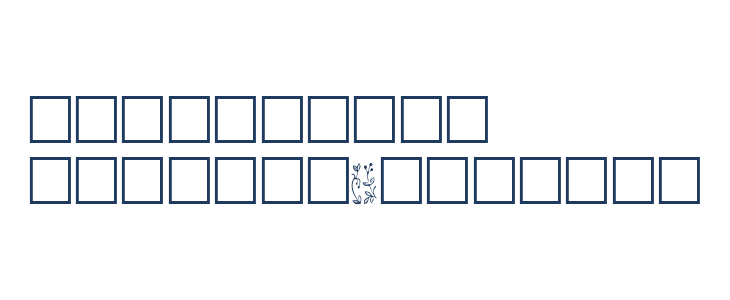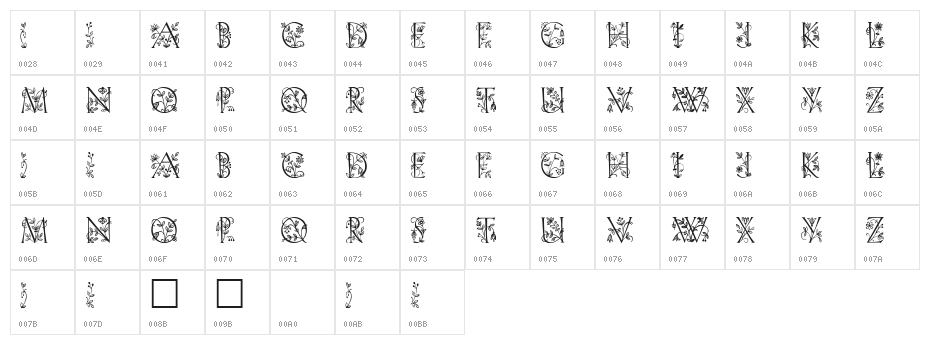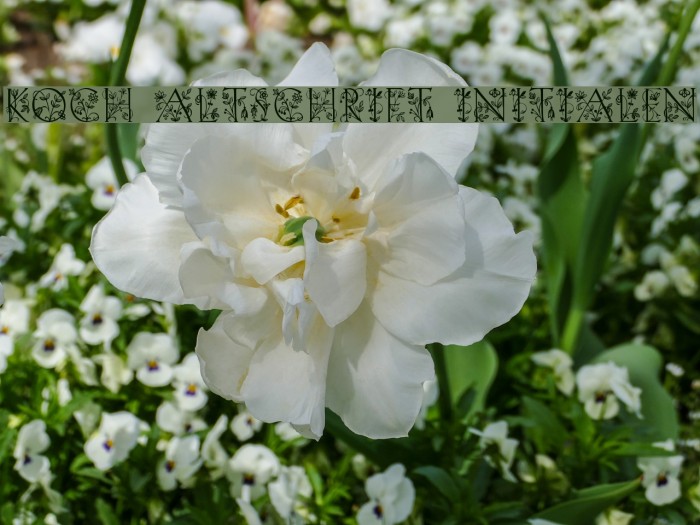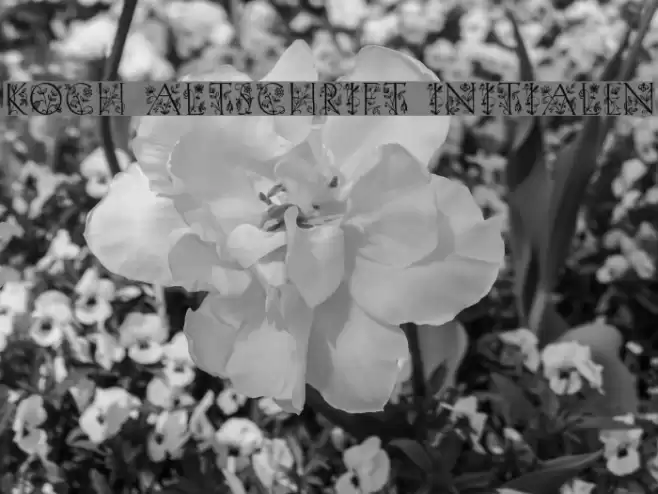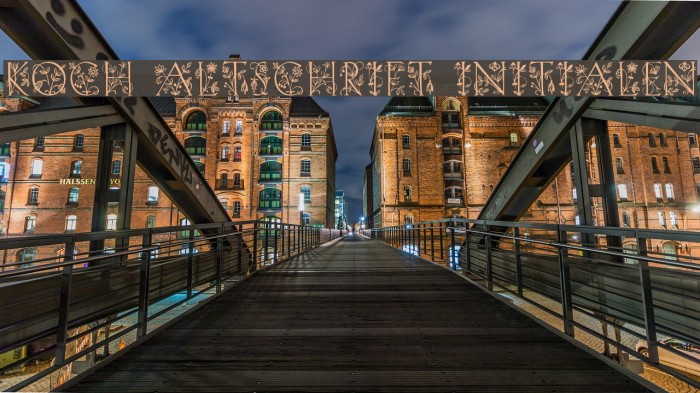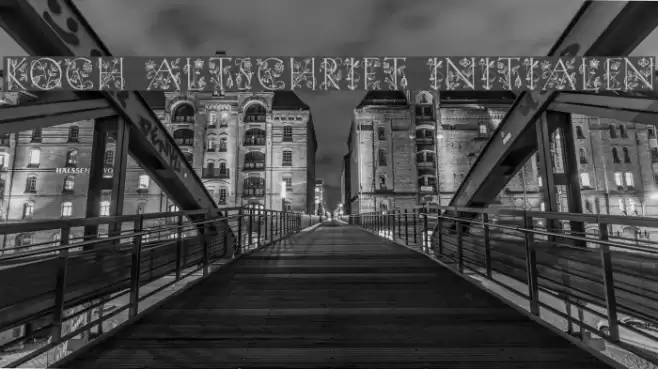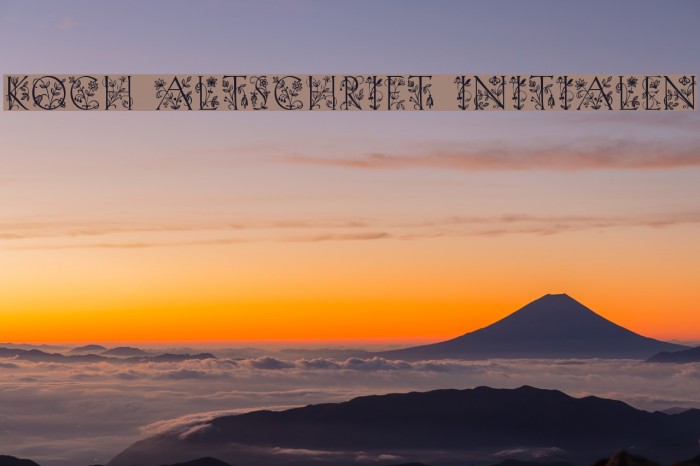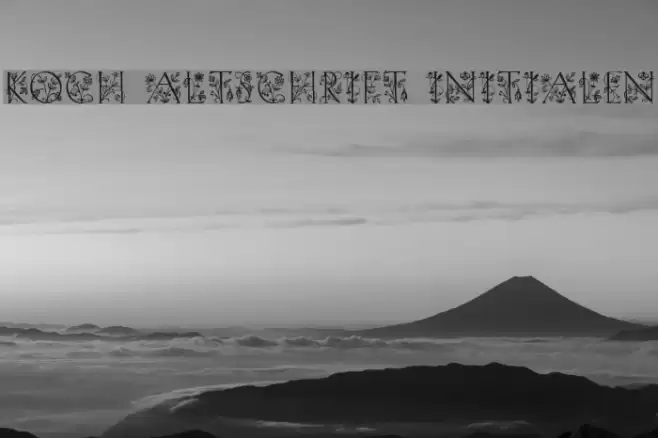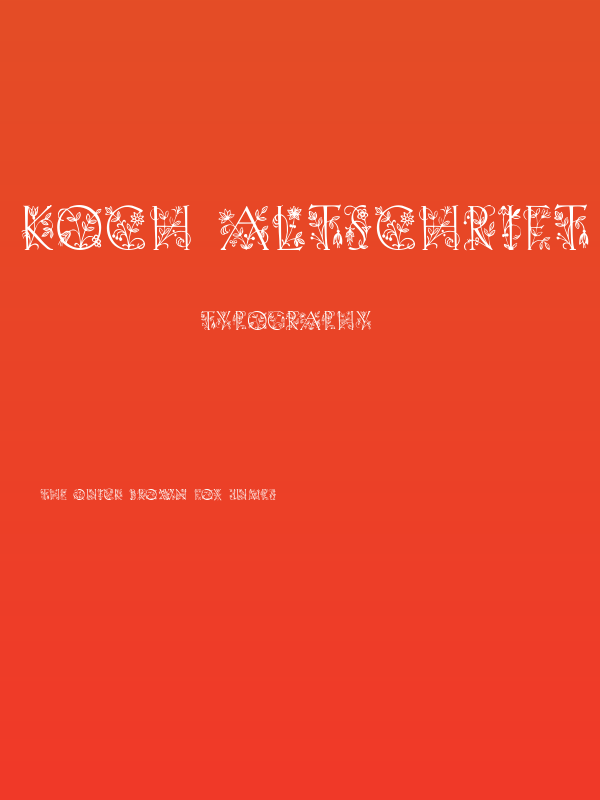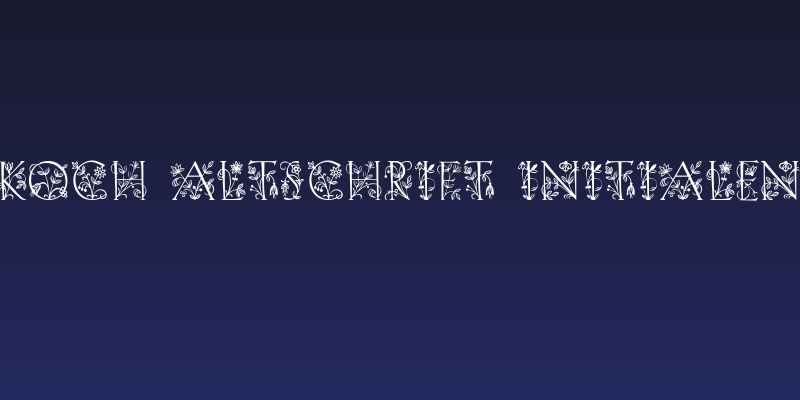
Koch Altschrift Initialen Font
Koch Altschrift Initialen Description
This font is a decorative typeface that features intricate floral and vine patterns integrated into each letter. The uppercase letters are adorned with detailed botanical elements, creating an ornate and elegant appearance. The design is reminiscent of historical or vintage styles, with a focus on embellishment and artistic flair. Each character is unique, with varying floral motifs that add a sense of individuality and charm. The font is primarily uppercase, with no lowercase or numerical characters present, emphasizing its use for decorative purposes.
| Overall Style | Vintage, Decorative |
| Use Case | Headlines, Logos, Decorative text |
| Proposed Projects | Ideal for wedding invitations, greeting cards, decorative headings, and artistic projects requiring a vintage or elegant touch. |